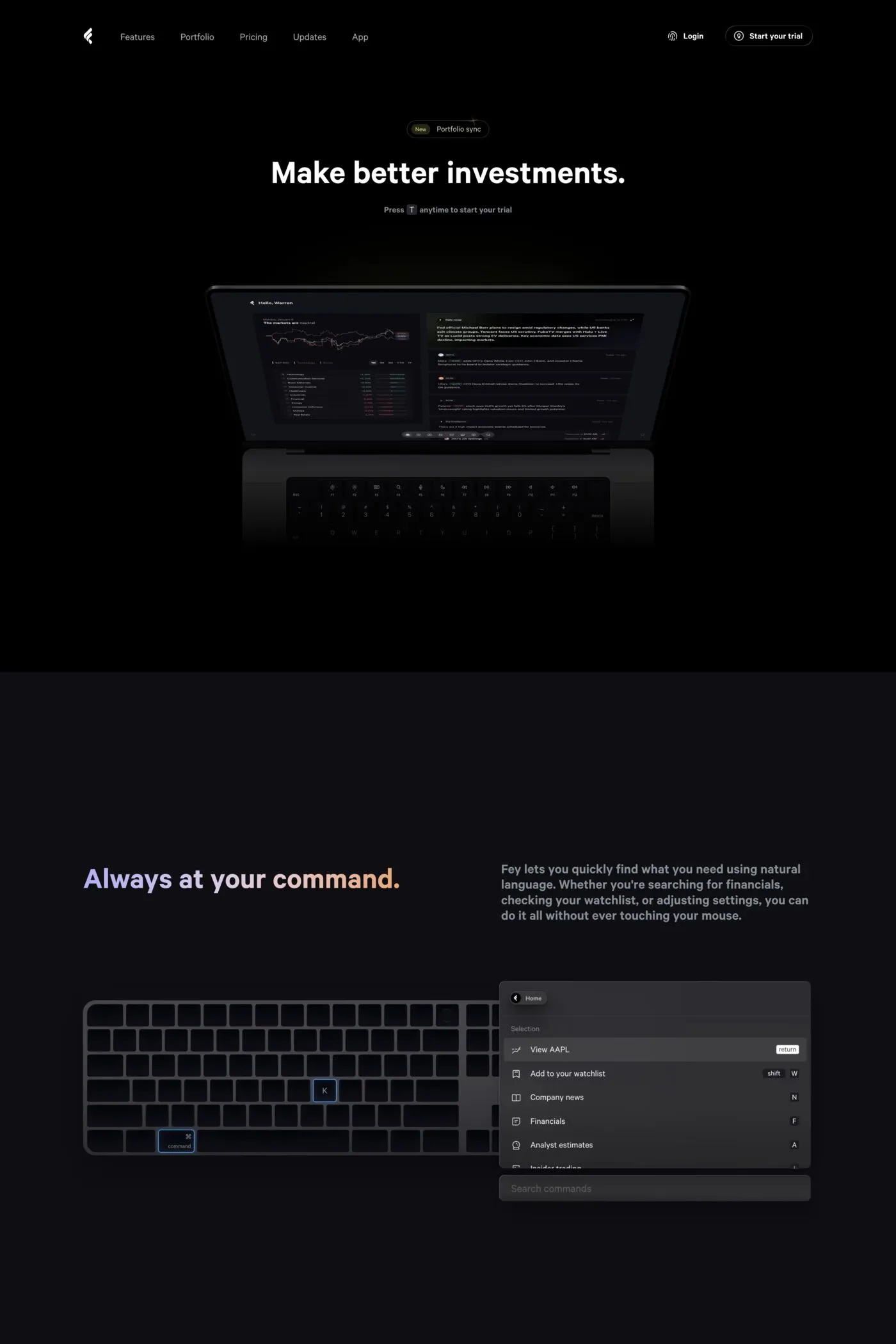
Calibre is a sans-serif typeface from Klim Type Foundry.
Calibre is a sans inspired by engineered geometry. Test the fonts, see them in use, read about their design and buy for desktop, web & app.